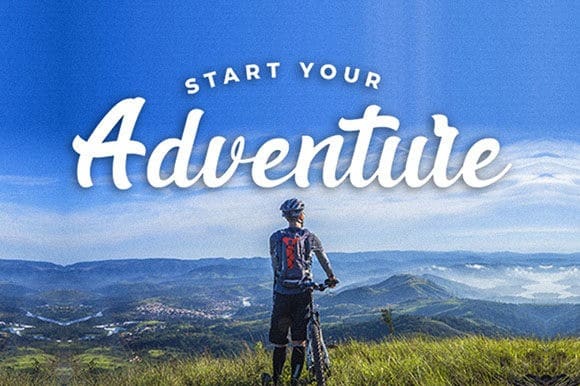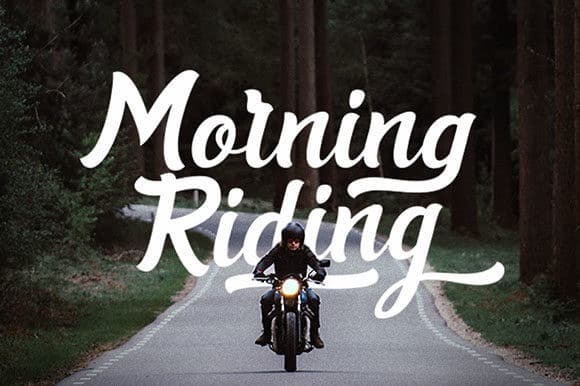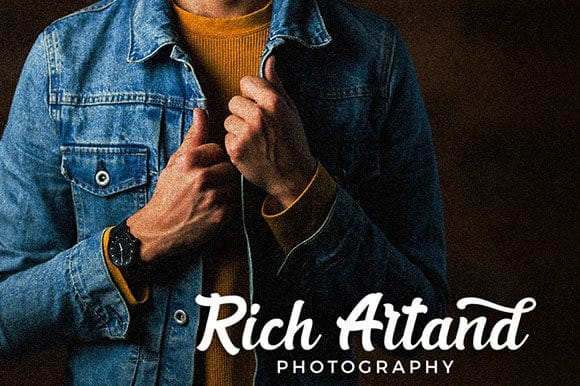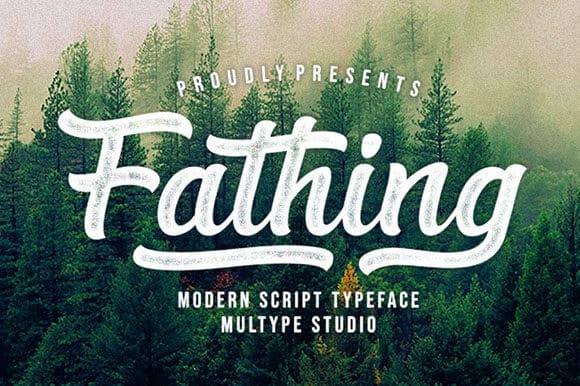
Fathing Calligraphy Font
Hello friend. Fathing Calligraphy Font is inspired by urban or freestyle artworks. With casual or marker style and lot of stylistic alternates you can create realistic headers. Made from font designer named MultypeStudio. It maintains its classy calligraphic influences while feeling contemporary and fresh. This versatility will appeal to a wide range of crafty ideas, from letterheads and titles, to stationery.